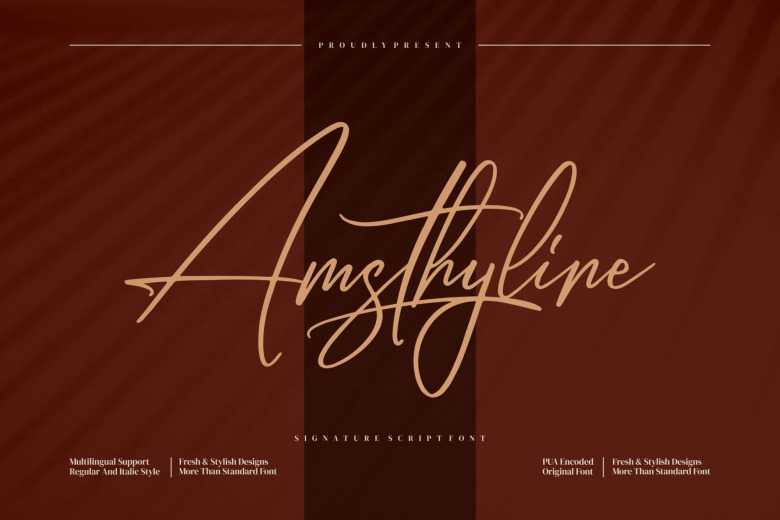
Amsthyline Font
Amsthyline is a delicate, elegant and flowing handwritten signature script font. It has beautiful and well balanced characters and as a result, it matches a wide pool of designs. This font is PUA encoded which means you can access all of the glyphs and swashes with ease!
Amsthyline Handwritten Script Font